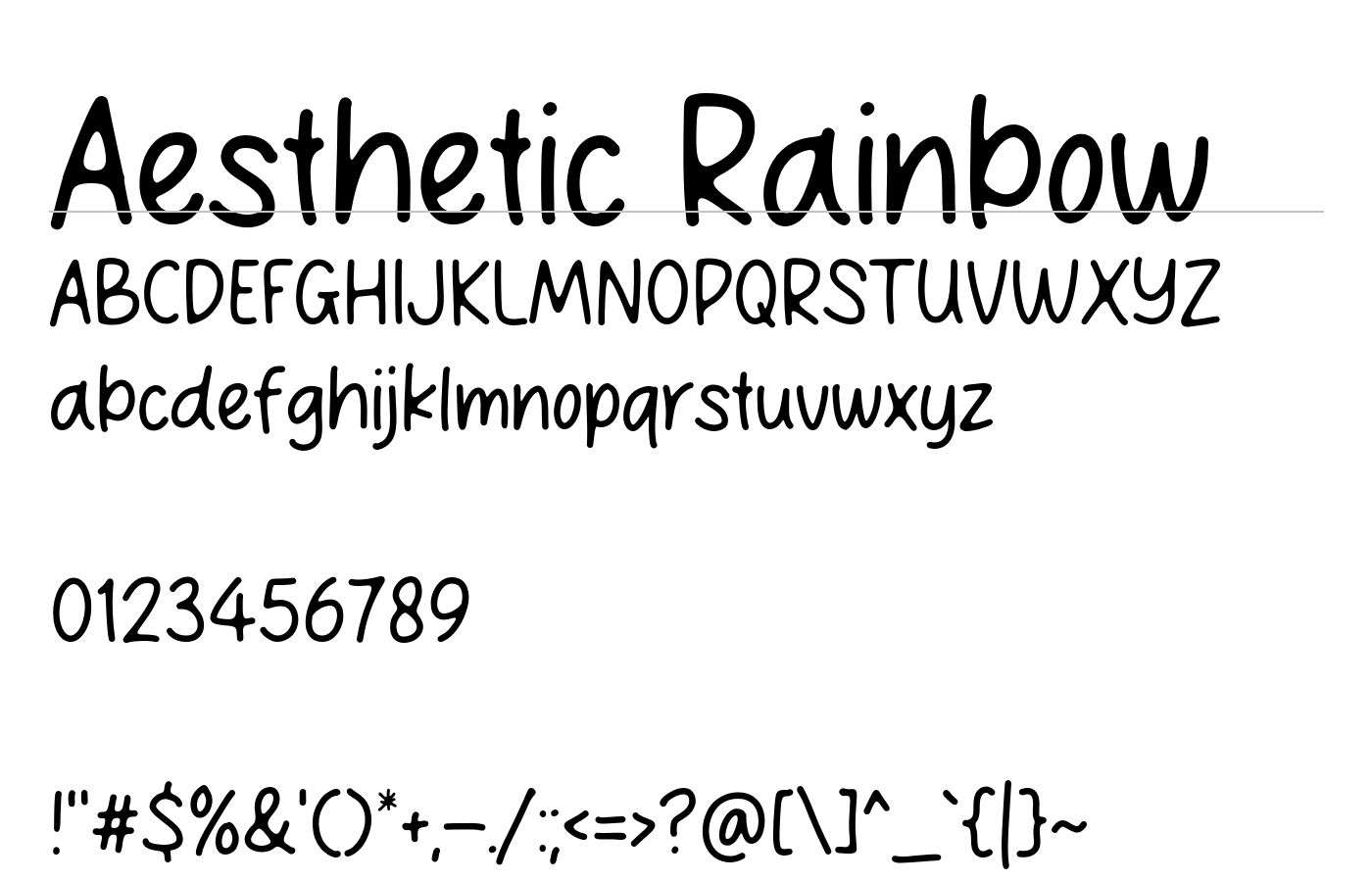
Aesthetic Rainbow is a playful, hand-drawn sans serif font with a casual and friendly vibe. Its irregular, rounded letterforms and moderate x-height create an inviting, approachable feel, making it ideal for informal branding, children’s materials, and creative projects that need a fun yet clear typeface. This font works well in headlines and logos where a personal, cheerful touch is desired.
Aesthetic Rainbow Font
About Aesthetic Rainbow Font